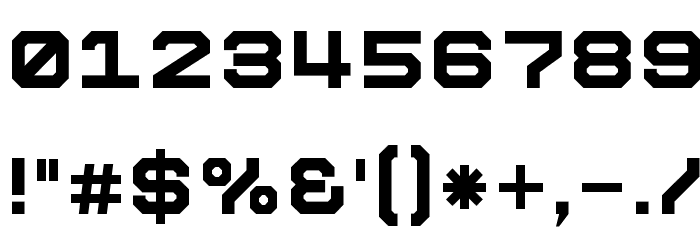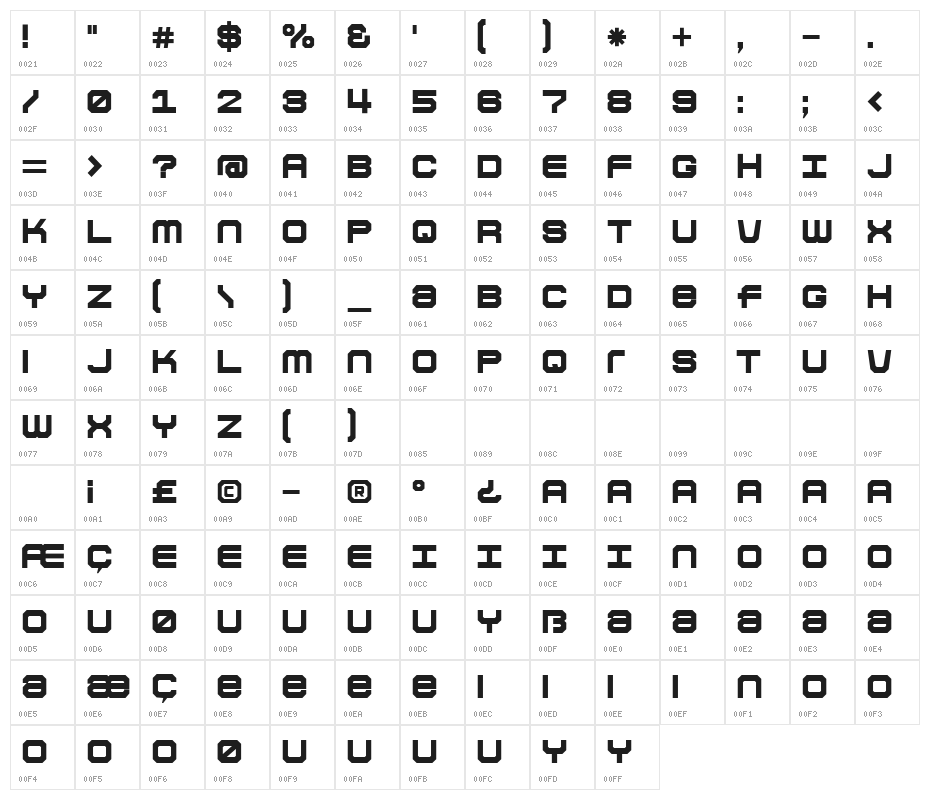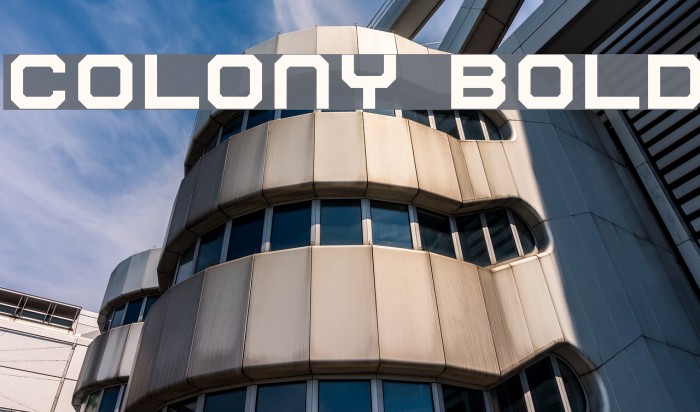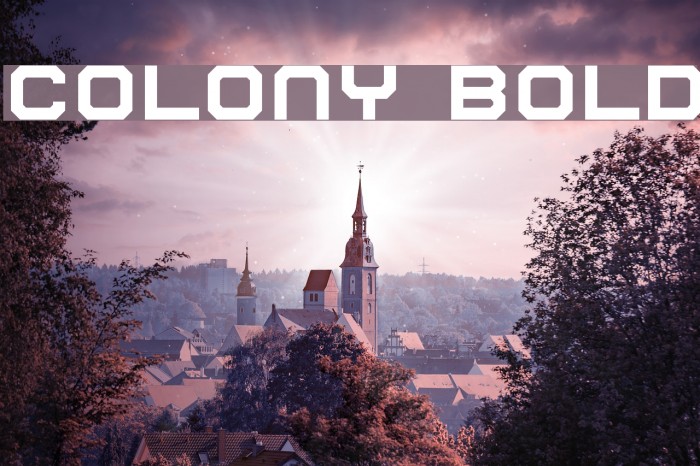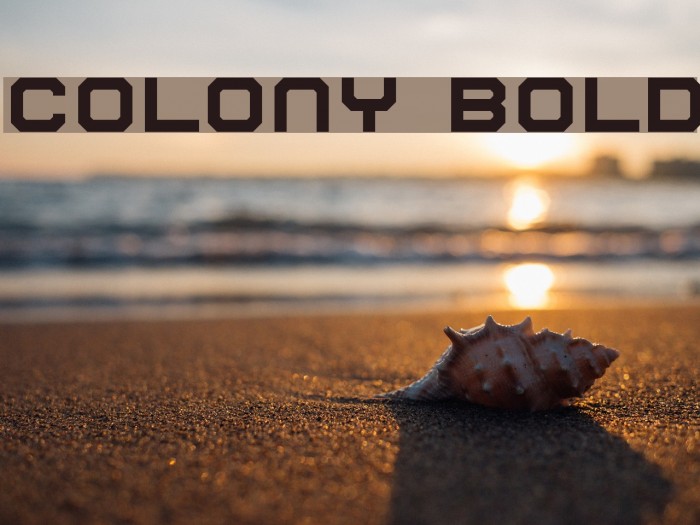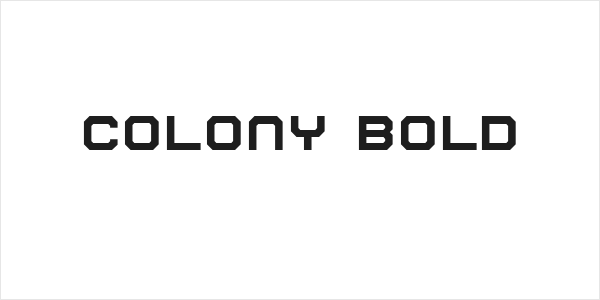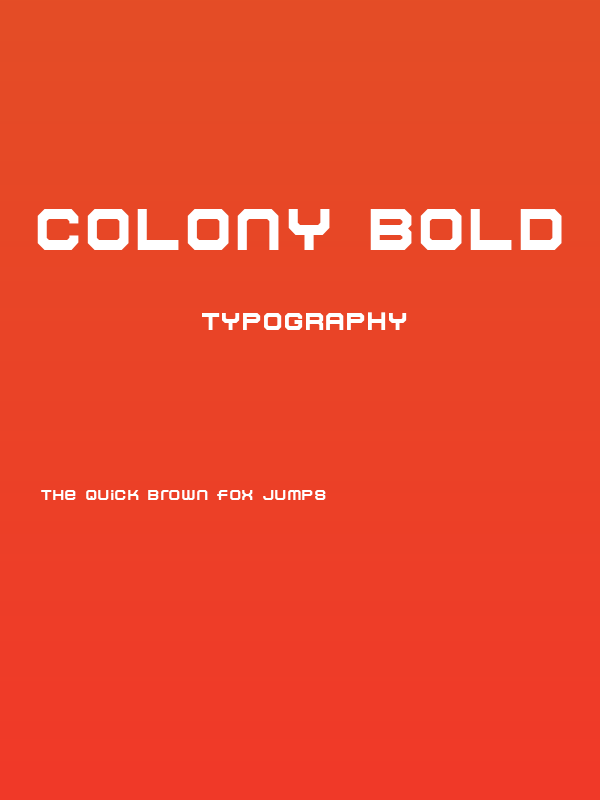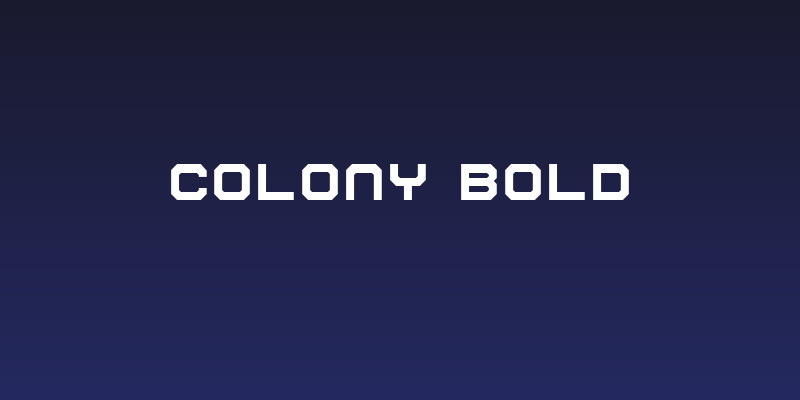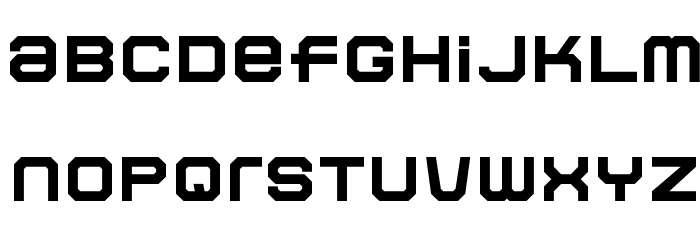
Colony Bold Font
Colony Bold Description
This font features a bold, geometric design with a futuristic and digital aesthetic. The characters are constructed with sharp, angular lines and uniform stroke widths, giving it a strong and assertive presence. The uppercase and lowercase letters share a consistent style, maintaining the boldness throughout. The numerals and special characters are designed to match the overall geometric theme, ensuring a cohesive look across all glyphs. The font's structure is reminiscent of digital displays or sci-fi themes, making it ideal for projects that require a modern and technological feel.
| Proposed Projects | Ideal for technology branding, sci-fi movie posters, video game titles, and digital interfaces. |